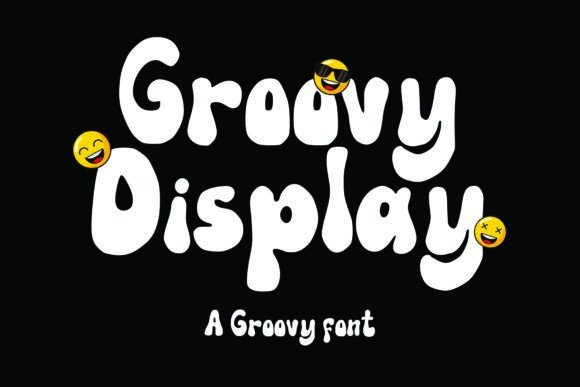
The Birth of a Groovy Design
Have you ever been stuck in a creative rut, staring at a blank page with no inspiration in sight? You’re not alone. Sometimes all it takes is one bold, eye-catching font to spark a design into life. And that’s exactly what happened when we stumbled upon the “Groovy Display Font” – a playful, round, and chubby display font that screams fun and energy.
This charming font is the perfect addition to any project looking to add a touch of whimsy and playfulness. Whether it’s a logo, branding, or packaging design, the “Groovy Display Font” is sure to bring a smile to your face and captivate your audience. Its bold style and eye-catching look make it a valuable tool for designers looking to create a cheerful and lively atmosphere.
Groovy Display Font Key Features
- Font Family: Groovy Display Font is a unique, display font designed to make a statement in digital and print media.
- Character Count: Includes a comprehensive set of characters, including uppercase and lowercase letters, numbers, and punctuation marks.
- Unique Characteristics: Groovy Display Font features a bold, playful, and eye-catching design, making it perfect for headings, titles, and other display typography.
Groovy Display Font Review
As a designer, I was excited to dive into the world of Groovy Display Font. Overall, it’s a fun and quirky addition to any design project. Here’s what I think works well:
- ✨ Unique style: The font’s bold and playful lines make it perfect for headings and titles.
- ✨ Easy to read: Despite its quirky design, the font is surprisingly easy to read, even at smaller font sizes.
- ✨ Versatile: Groovy Display Font comes in a range of weights and styles, making it suitable for a variety of design projects.
- ⚠️ Limited legibility at very small sizes: While the font is generally easy to read, it can become fuzzy and difficult to decipher at extremely small sizes.
- ⚠️ Not ideal for body text: While the font is perfect for headings, it’s not the best choice for body text due to its bold and playful style.
Overall, I’d say Groovy Display Font is a great addition to any design project that needs a fun and quirky touch. Just be mindful of its limitations, and use it sparingly to avoid overwhelming your audience.
For best results, use Groovy Display Font in bold or italic styles to add emphasis.
Experiment with different font sizes to create visual interest.
Combine Groovy Display Font with other fonts to create a unique and eye-catching design.
Groovy Display Font is ideal for:
Headlines and titles.
Brand logos and identity.
Advertising and marketing materials.
Alternatives to Groovy Display Font for Designers
Great Vibes is a modern, elegant script font perfect for creating a luxurious and sophisticated look. It is ideal for use in high-end branding, advertising, and editorial designs. Great Vibes has a more refined and polished feel compared to Groovy Display Font, making it suitable for formal and professional applications.
Comparison: Great Vibes is more refined and elegant, while Groovy Display Font is more playful and energetic.
Carolyna Pro is a beautiful, elegant script font that is perfect for creating a luxurious and high-end look. It is ideal for use in branding, advertising, and editorial designs. Carolyna Pro has a more classic and sophisticated feel compared to Groovy Display Font, making it suitable for formal and professional applications.
Comparison: Carolyna Pro is more elegant and sophisticated, while Groovy Display Font is more playful and energetic.
Alex Brush is a elegant, handwritten font that is perfect for creating a personal and creative look. It is ideal for use in branding, advertising, and editorial designs. Alex Brush has a more whimsical and artistic feel compared to Groovy Display Font, making it suitable for casual and creative applications.